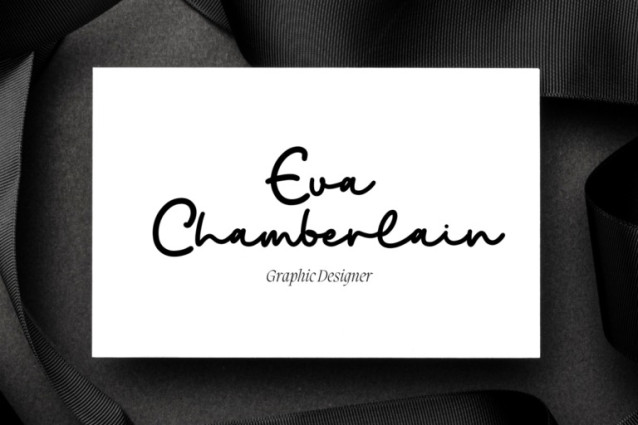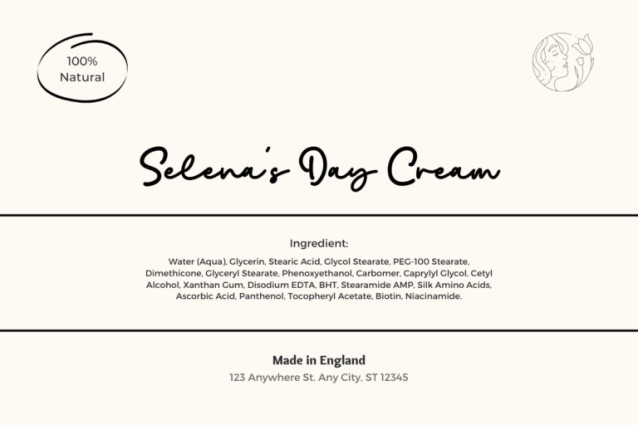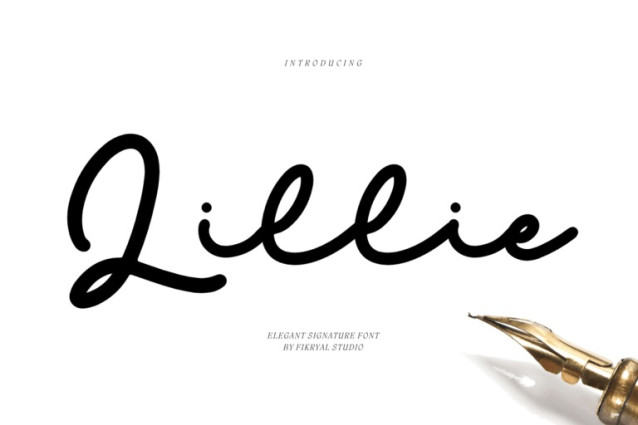
Lillie Elegant Signature Font
Lillie Elegant Signature Font is an elegant signature font perfect for crafting, branding, invitation, stationery, wedding designs, social media posts, advertisements, product packaging, product designs, label, photography, watermark, special events, or anything.